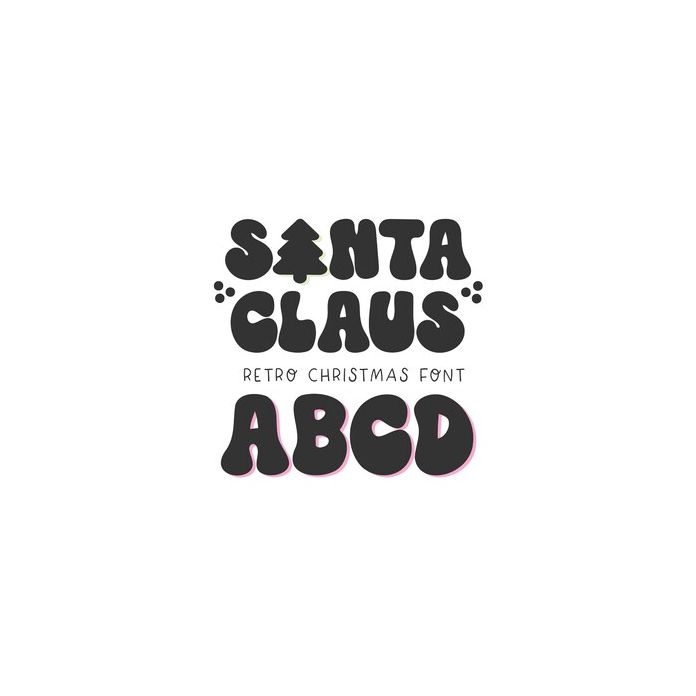
BFC Santa Claus Retro Christmas Font
Santa Claus is a retro Christmas font. Find the trees by using the <> keys. Find the snow flurries by using the {} keys.